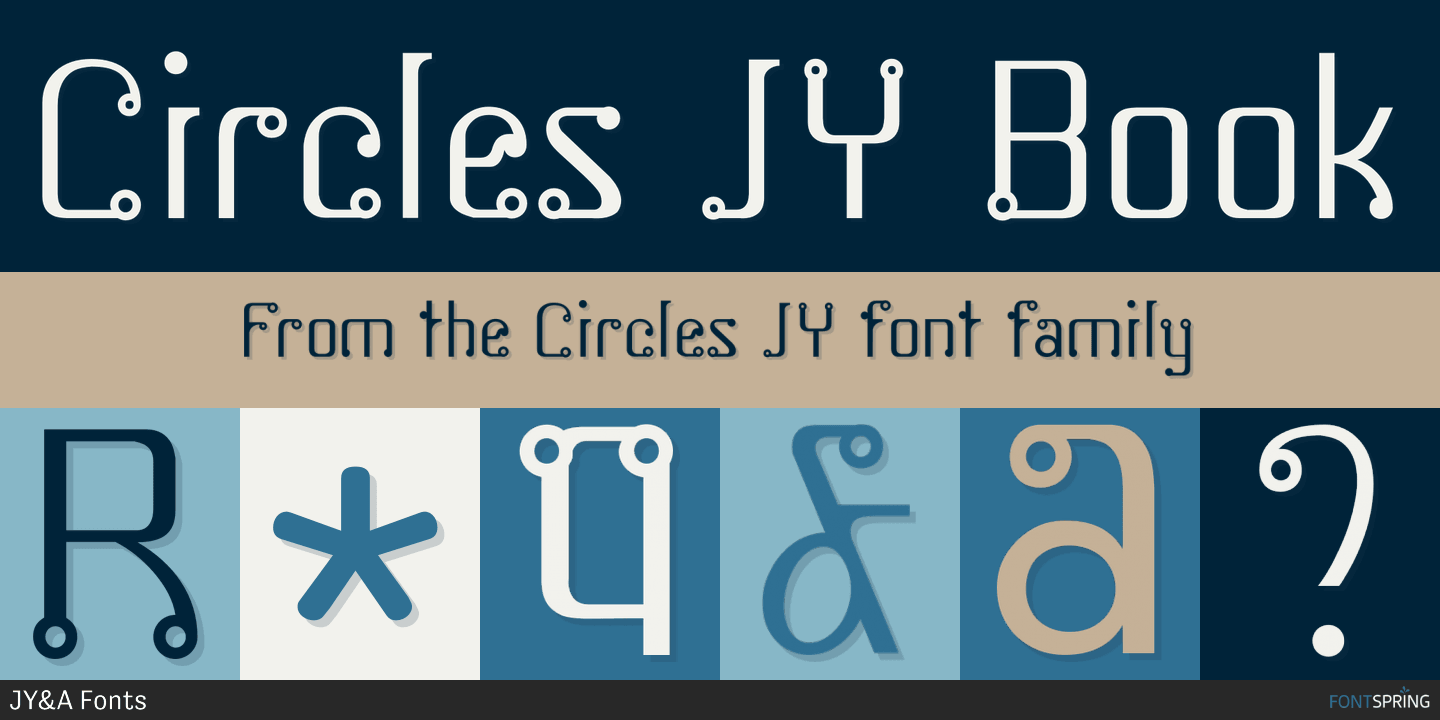
Circles JY
Based on electrical circuitry, David Philpott\’s Circles typefaces are oddly legible, even though one might think they were destined for display usage only. The circle is the base form, repeated throughout the design. Originally drafted during his time…